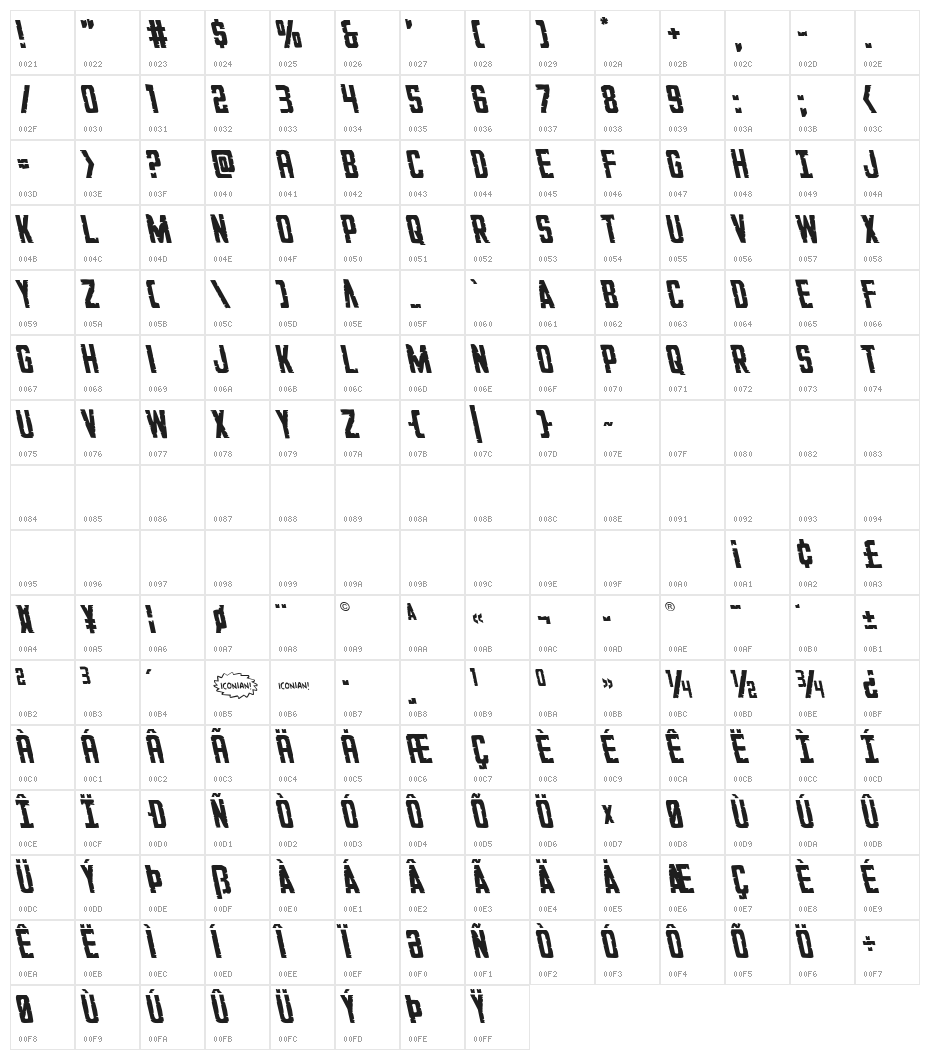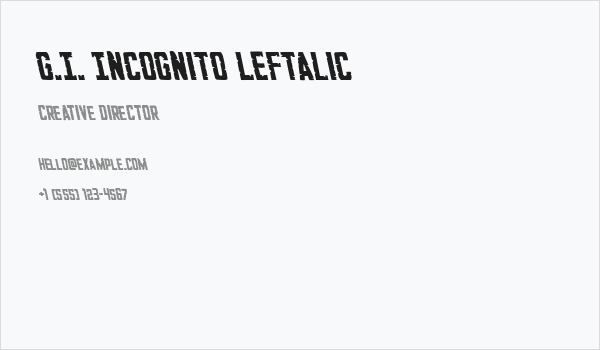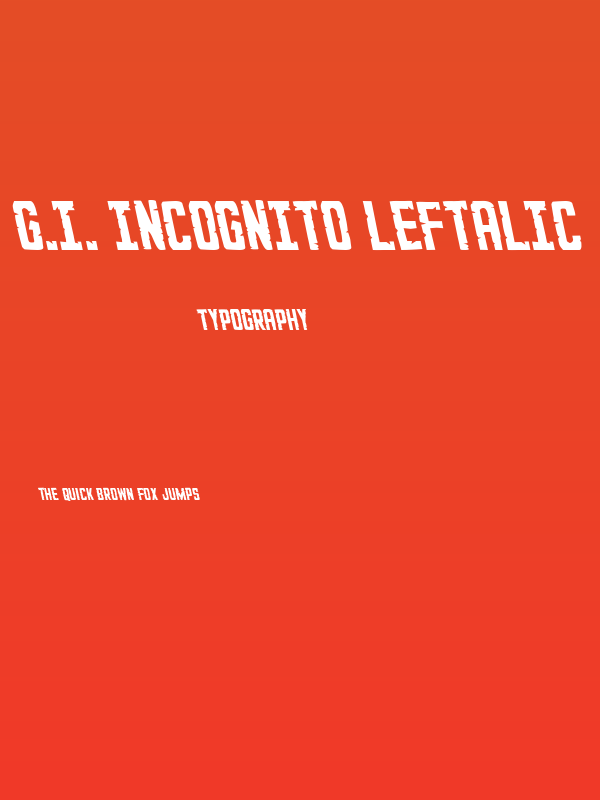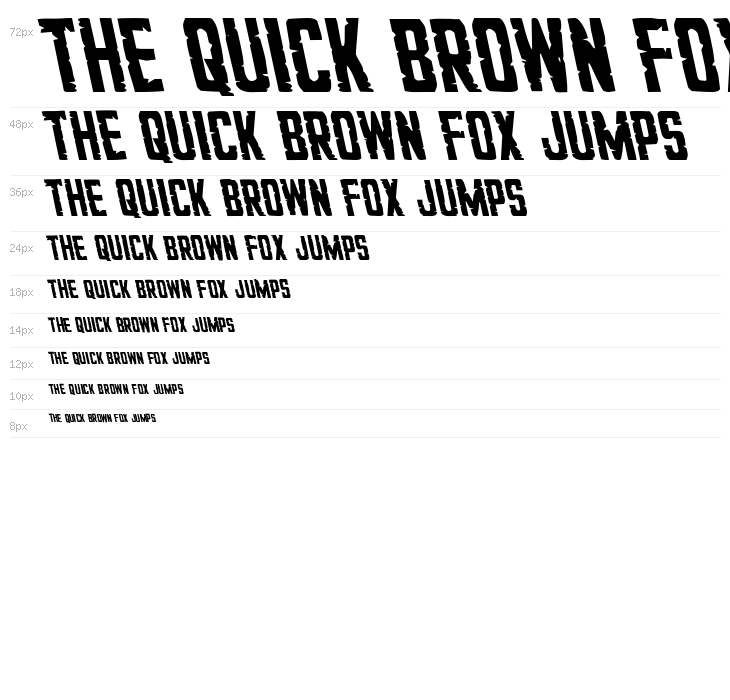
G.I. Incognito Leftalic Font
G.I. Incognito Leftalic Description
This font features a bold and rugged design with a distressed, grunge-like appearance. The characters are heavily stylized with irregular edges and a slightly slanted orientation, giving them a dynamic and edgy feel. The uppercase and lowercase letters maintain a consistent style, with thick strokes and a blocky structure. Numbers and special characters follow the same aesthetic, ensuring uniformity across all glyphs. The font's unique texture and bold presence make it stand out, ideal for projects that require a strong visual impact.
| Proposed Projects | Perfect for posters, album covers, branding for edgy products, or any design needing a bold statement. |